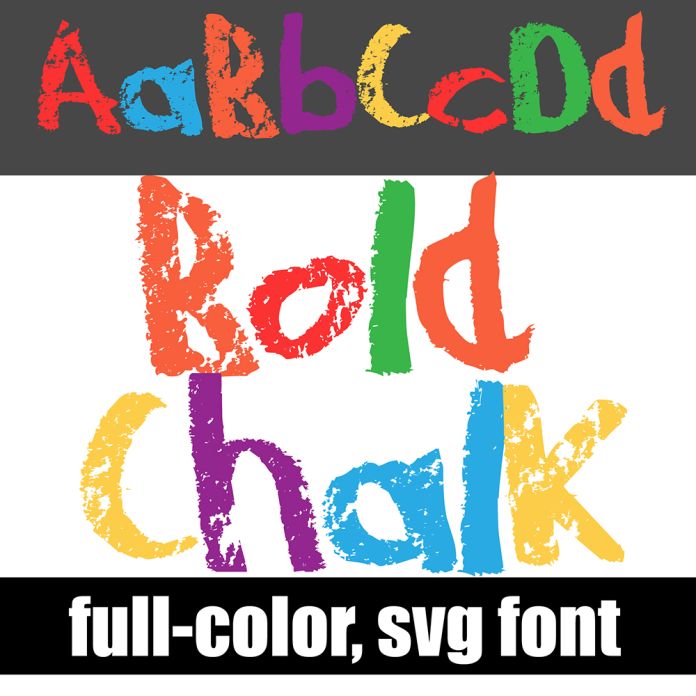
This full-color font features chalk-style lettering in bold coloring. There is an alt case with additional colors you can access through your system's character map. This font works best for titles, displays, posters and more. Please note color fonts will show as black in non compatible programs. This font type is compatible with Silhouette Studio.